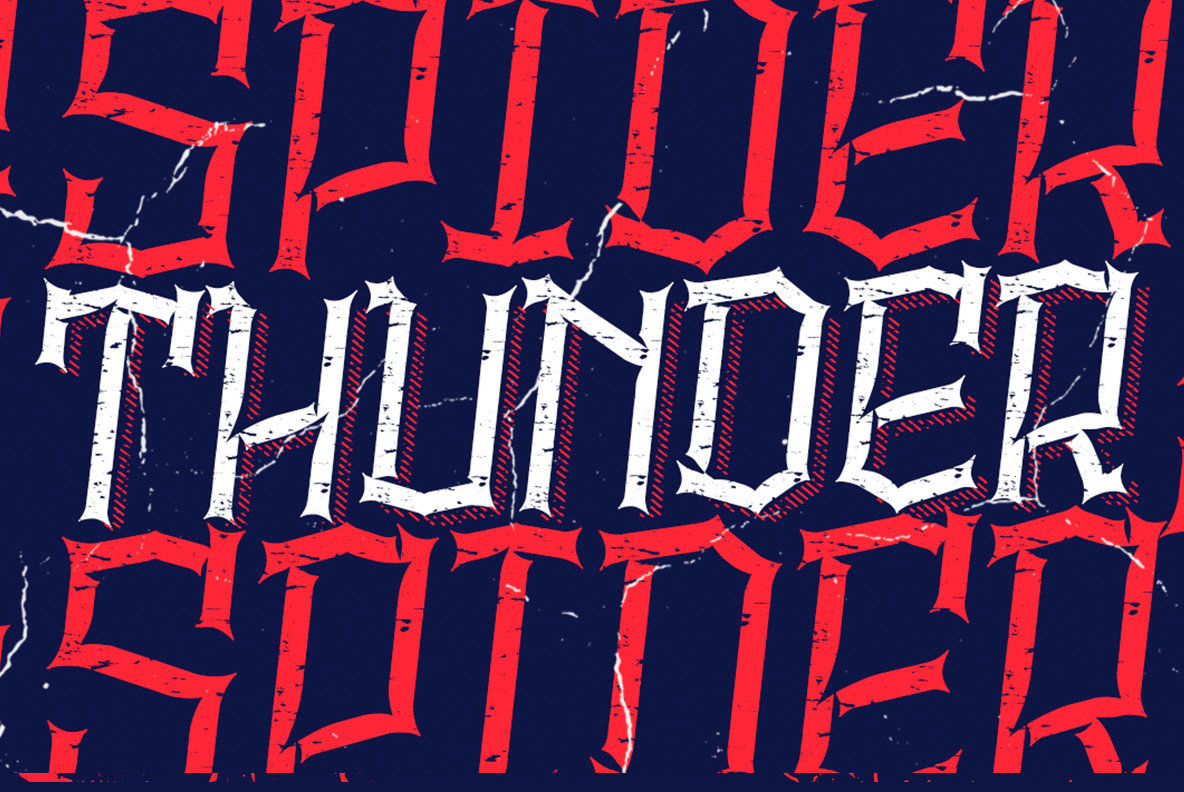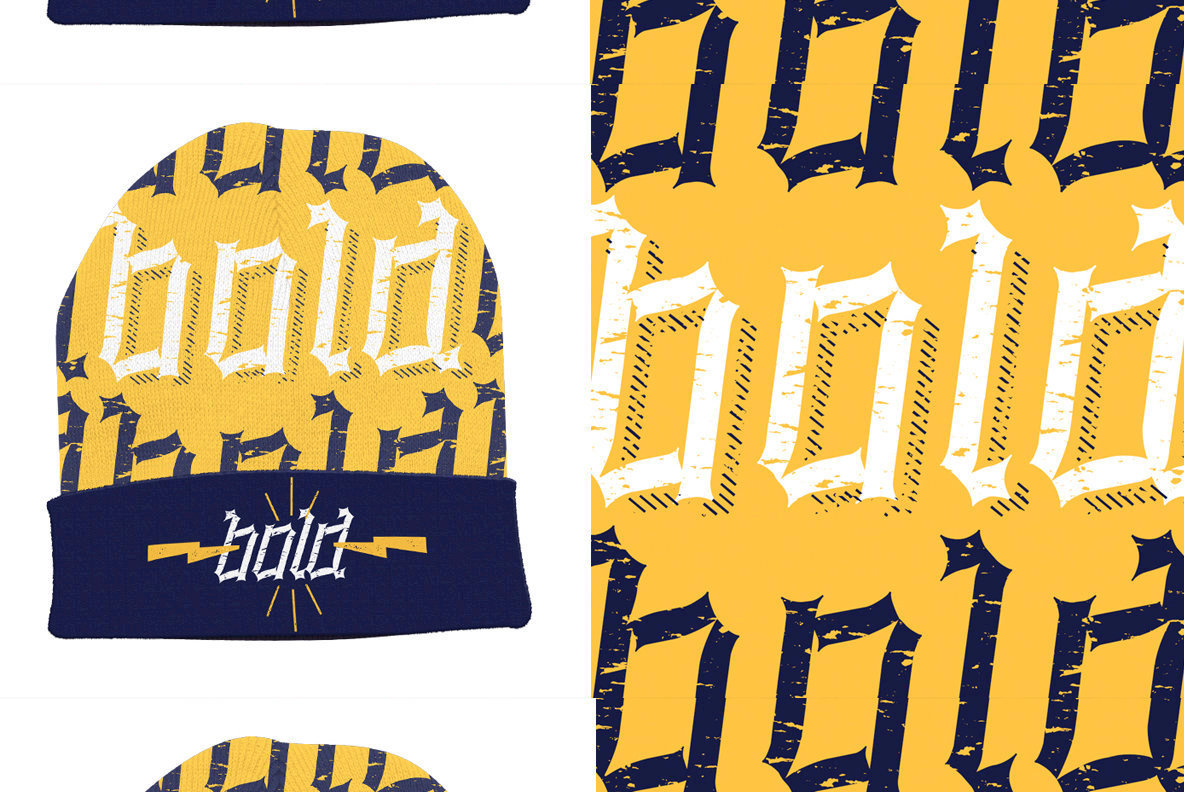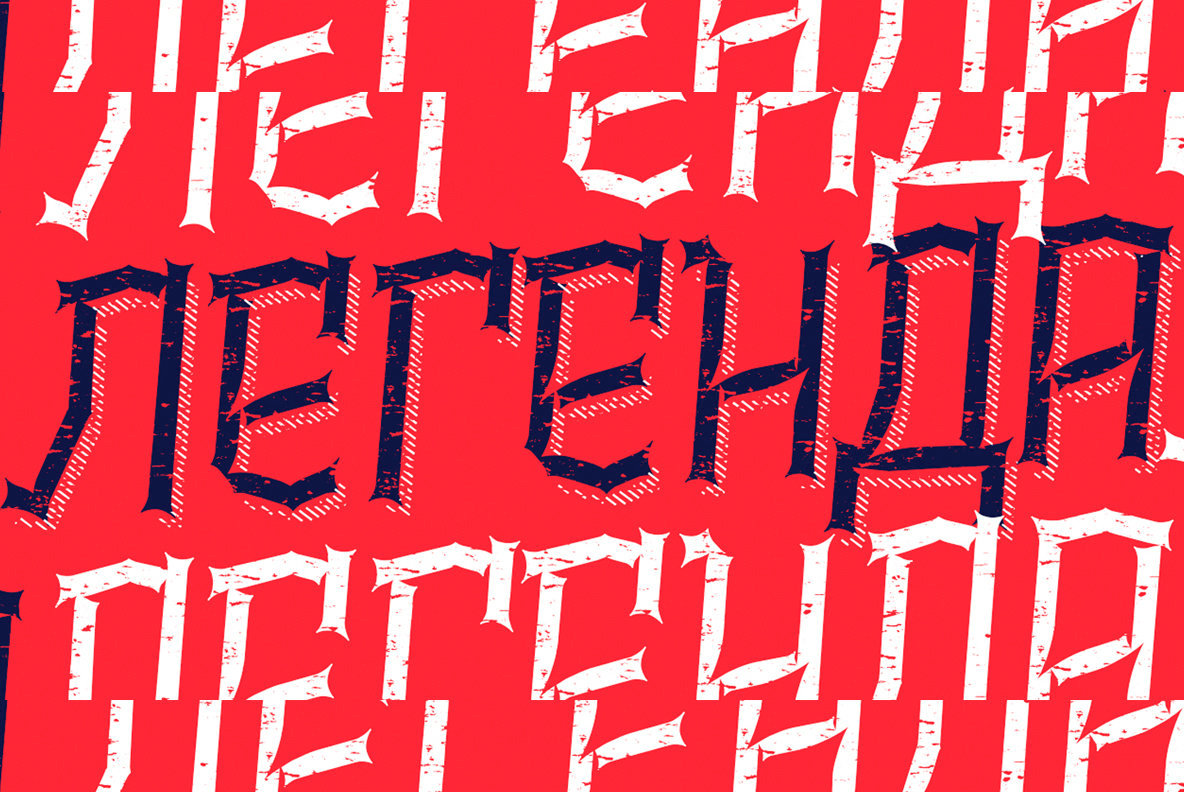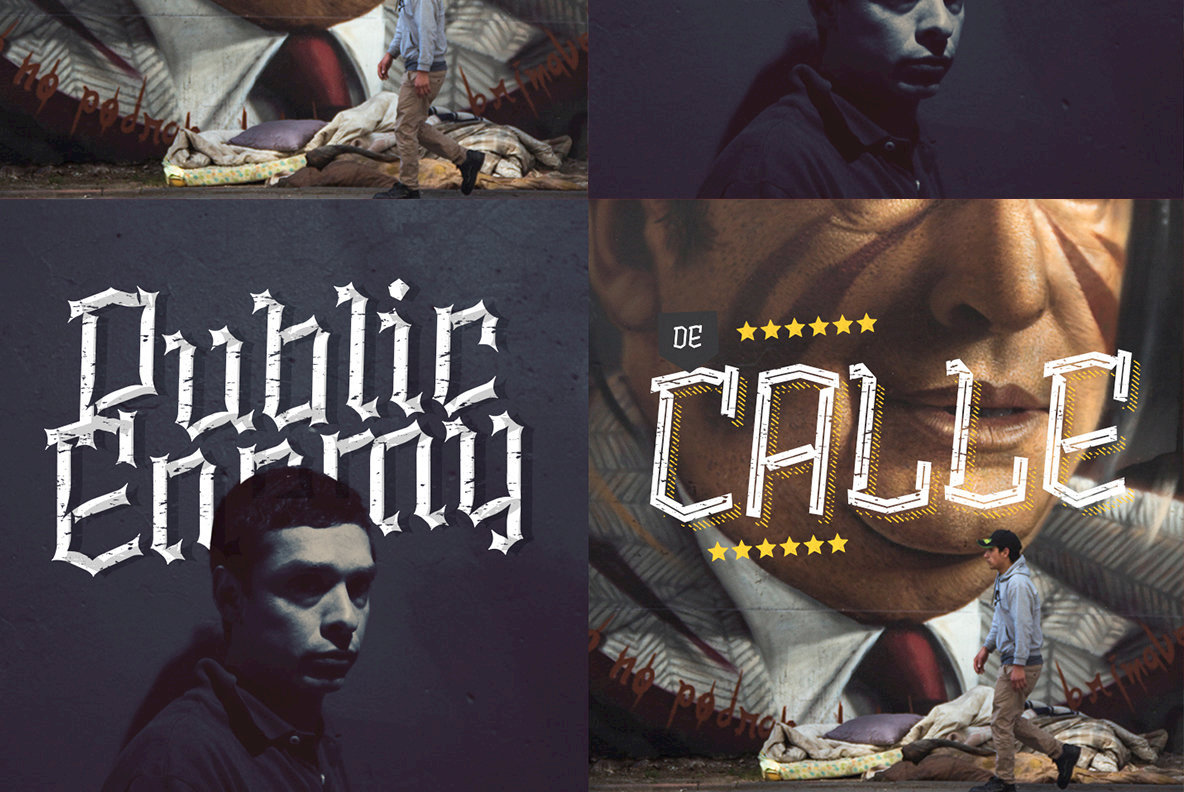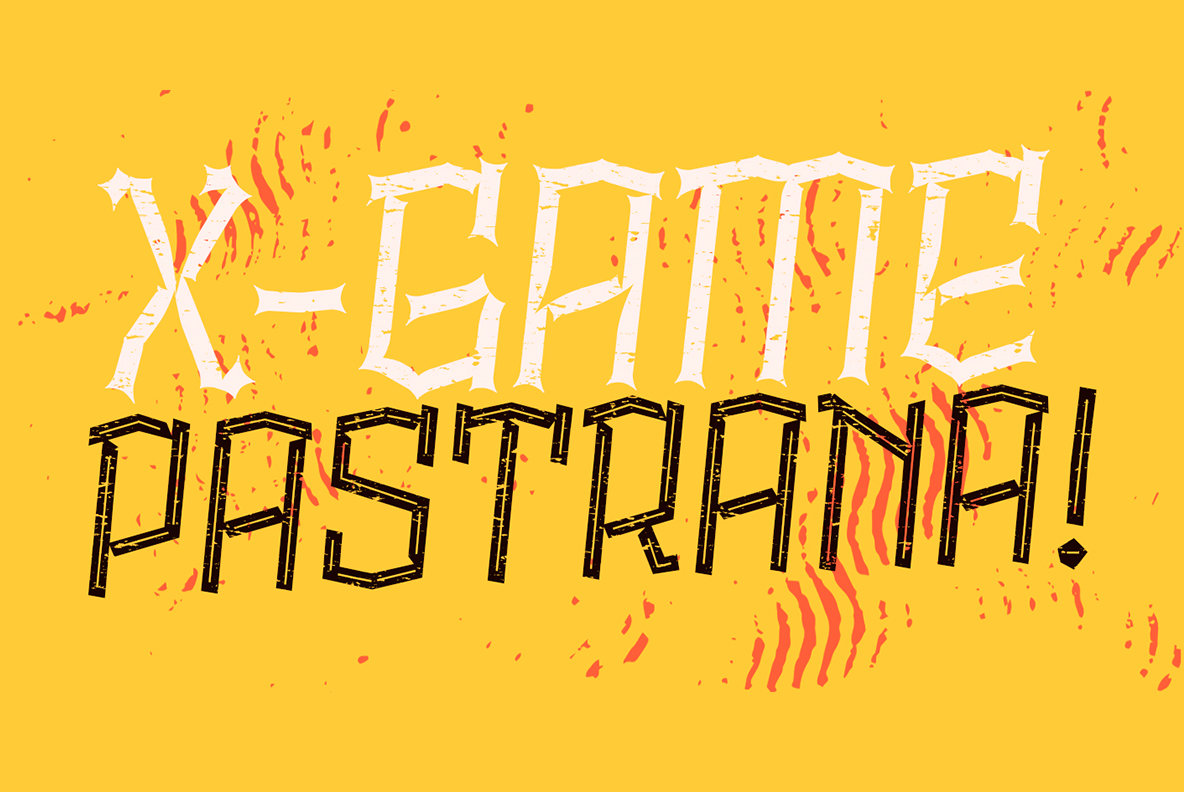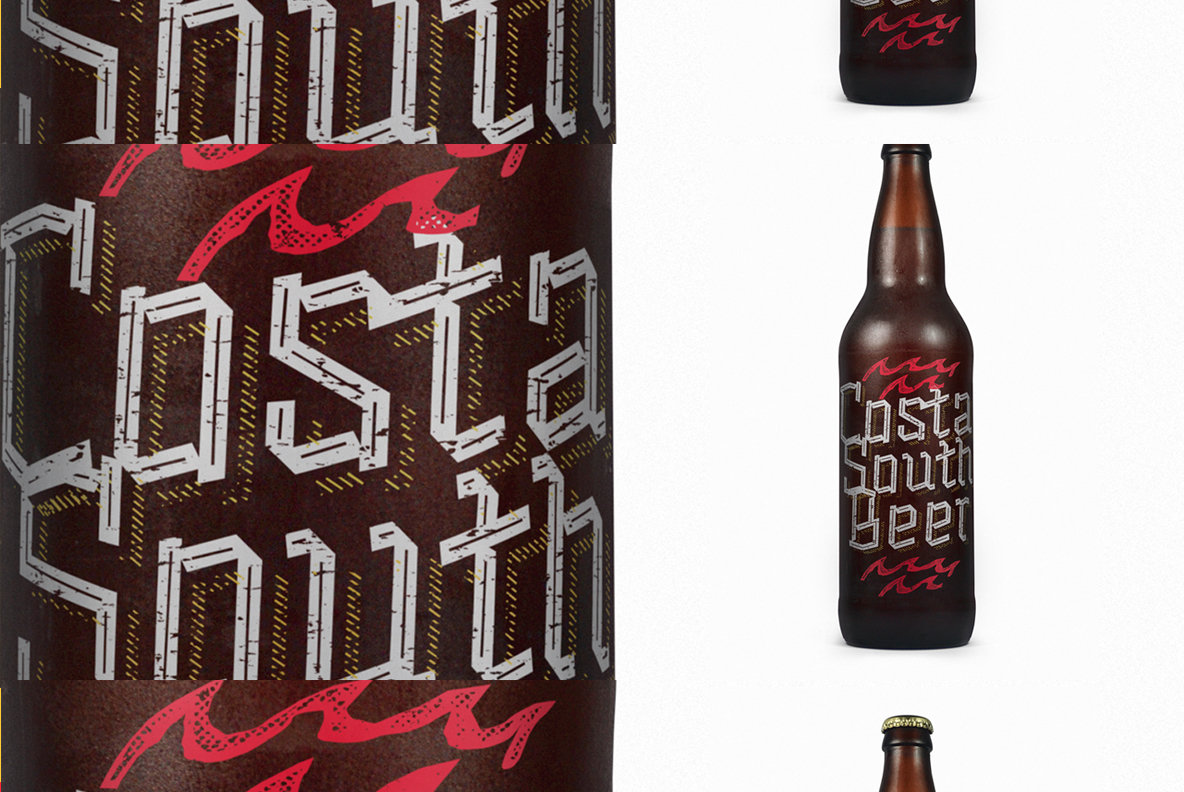
Alquitran Rust Font
Alquitran Rust captures the spirit of adventure and ruggedness, making it an ideal choice for extreme sports, magazines, and cover designs. With its intentionally worn and gritty aesthetic, this typeface offers a unique edge that challenges traditional design norms and brings an authentic feel to your creative projects.Alquitran Rust: A Distinctive Typeface for Bold Designs